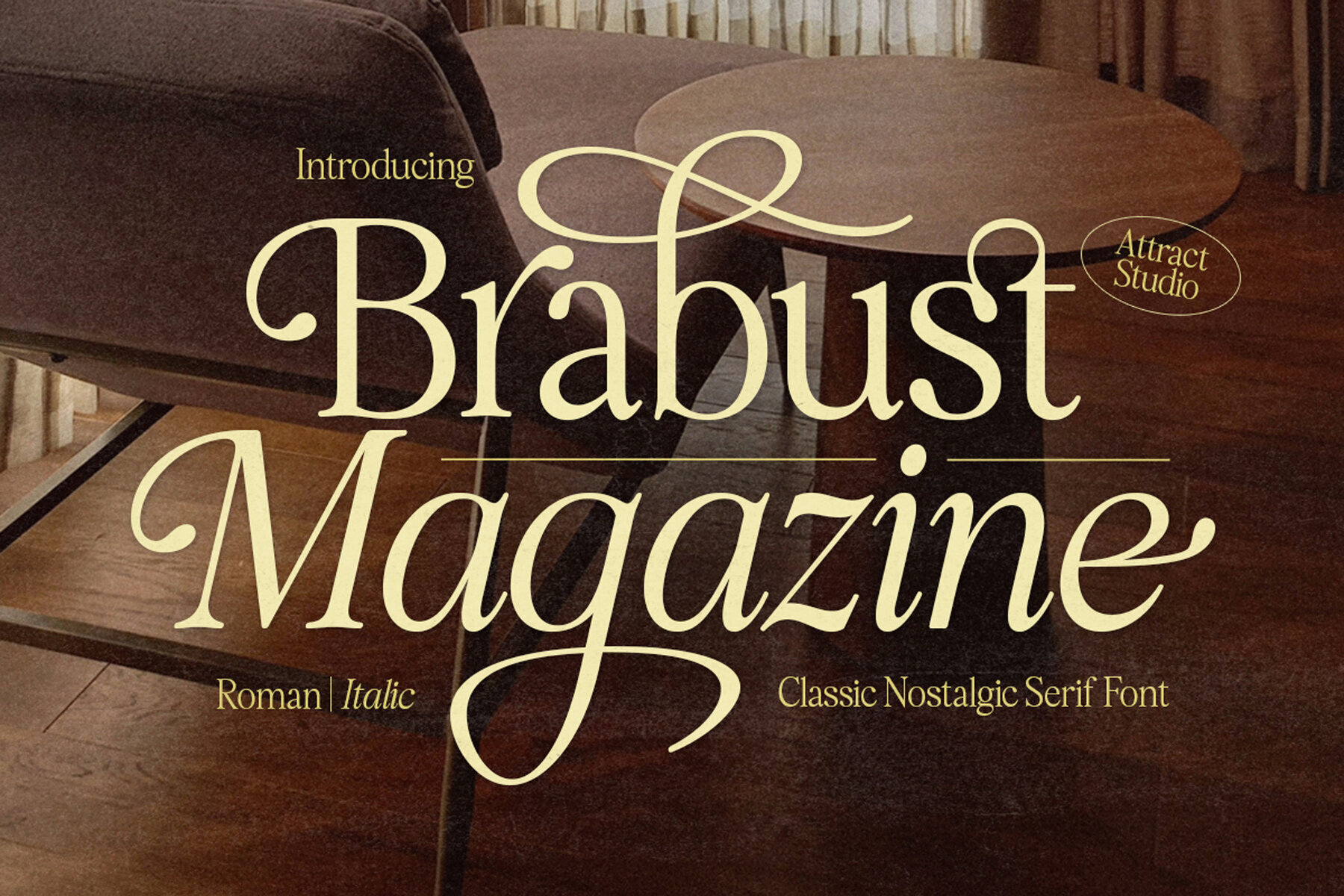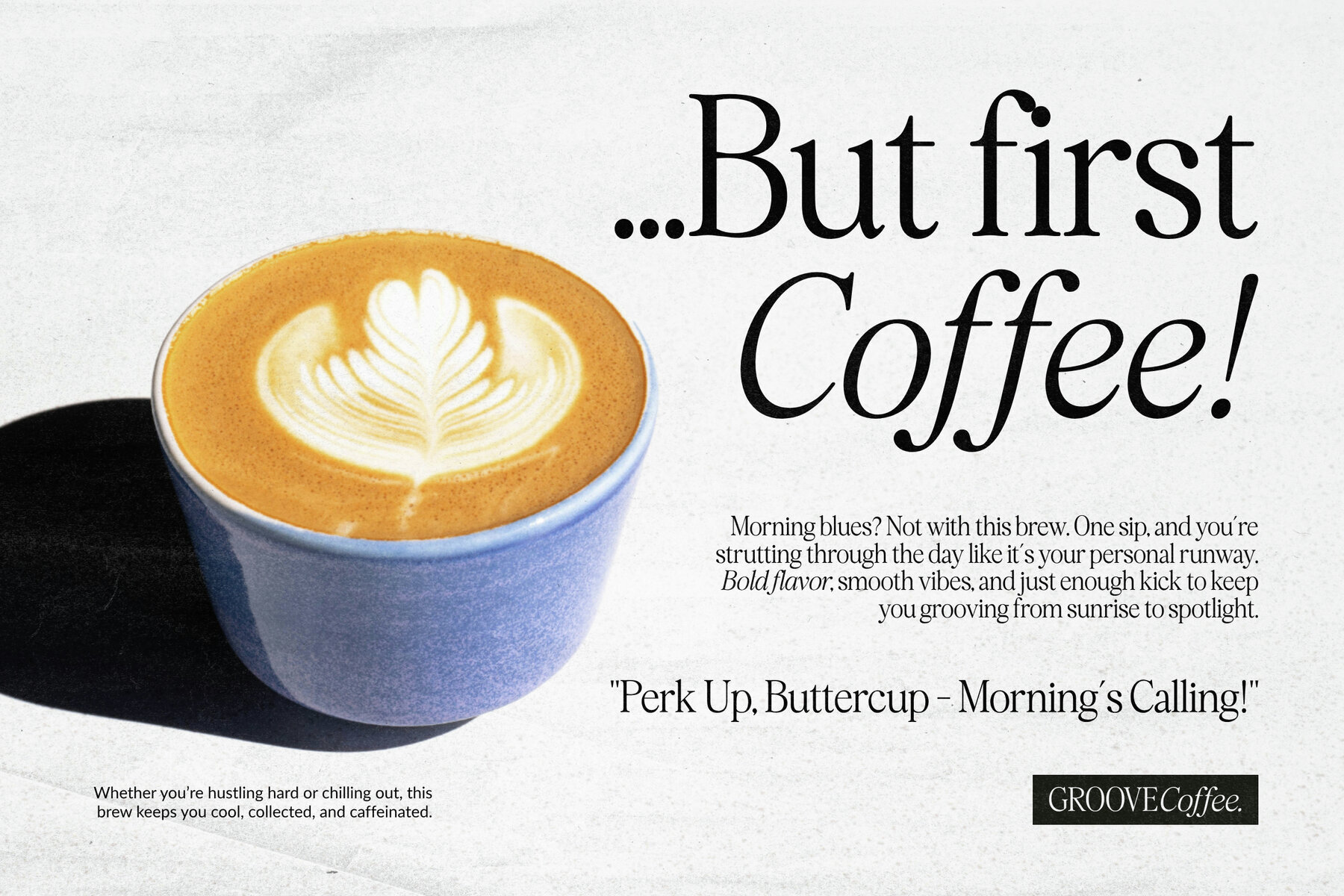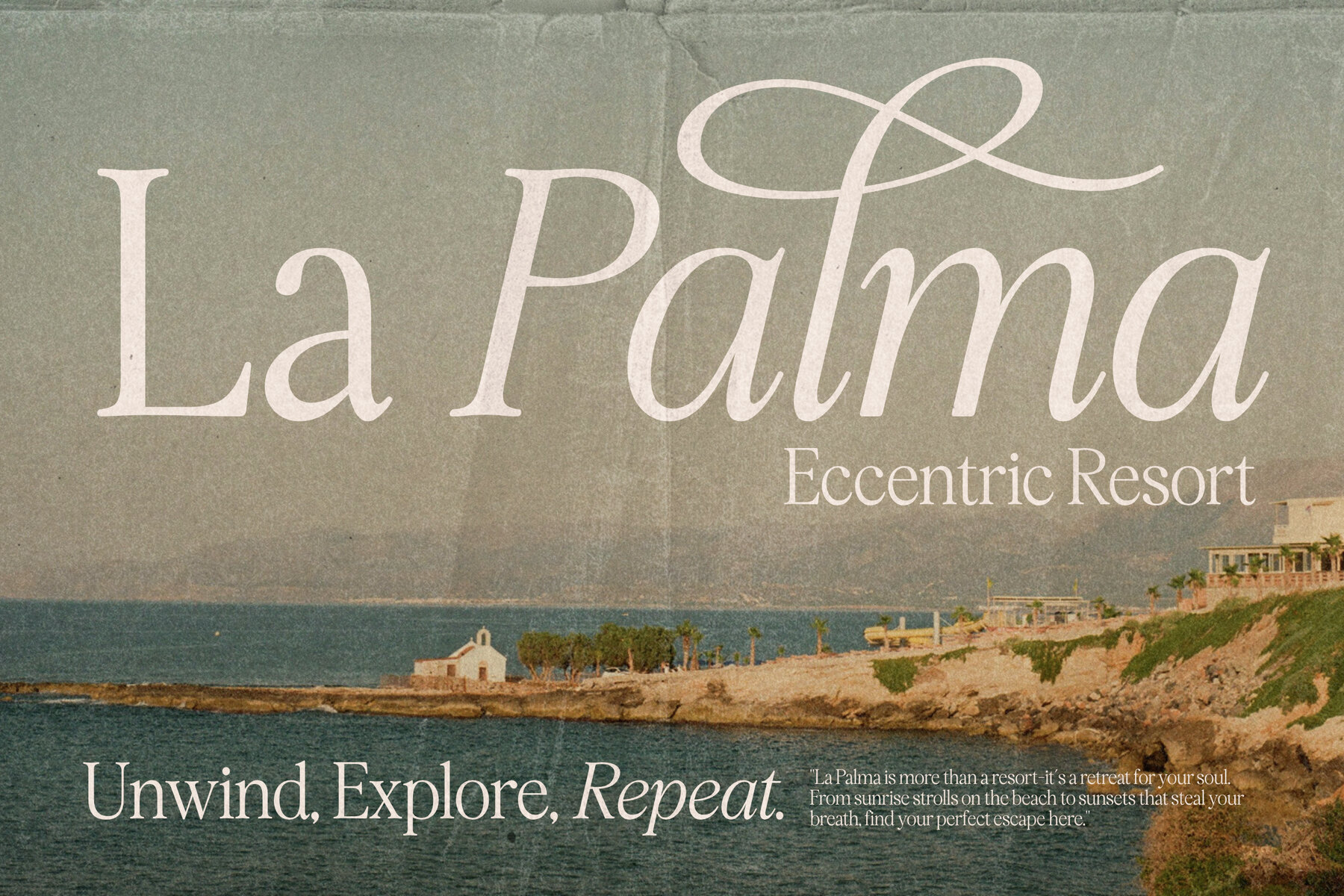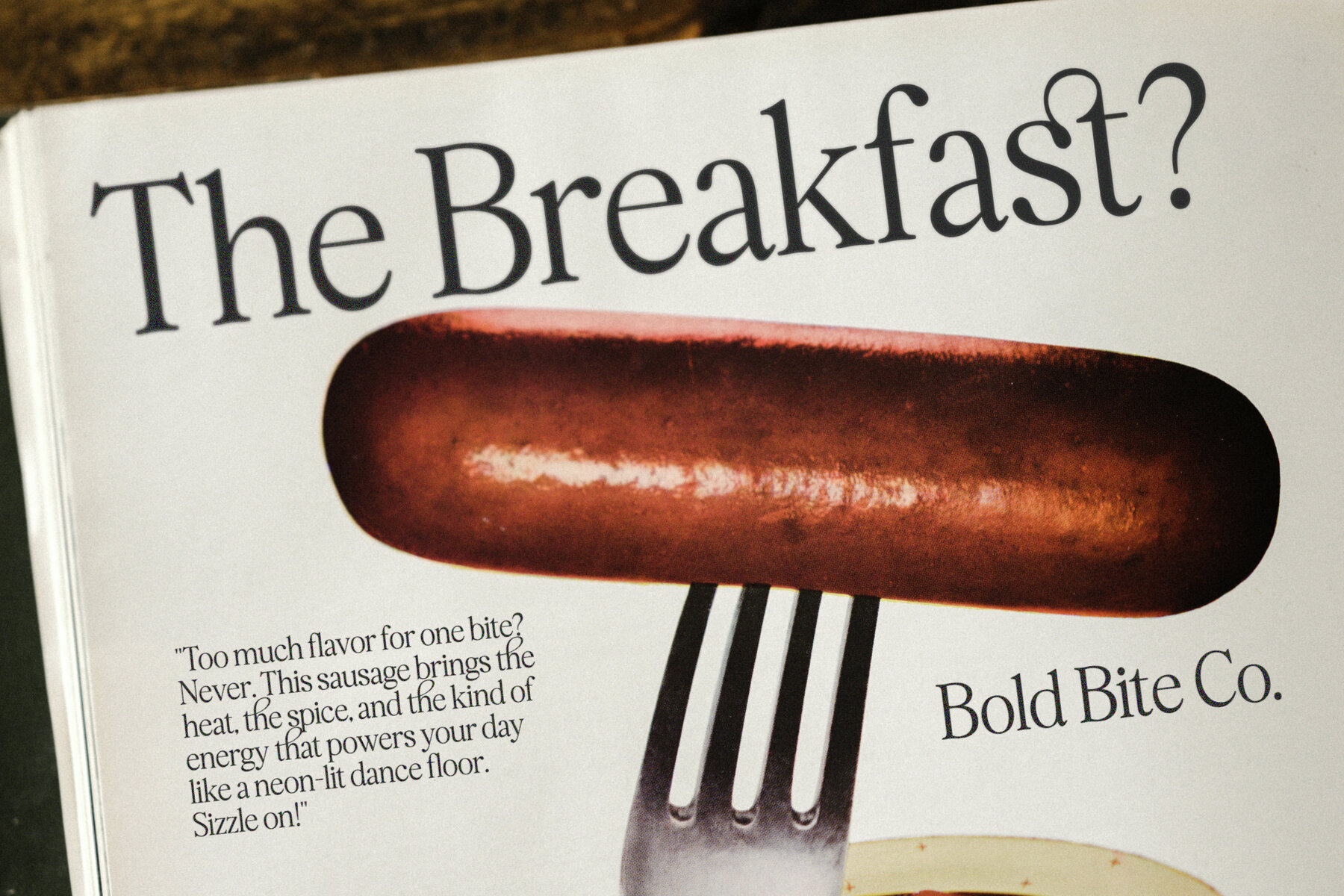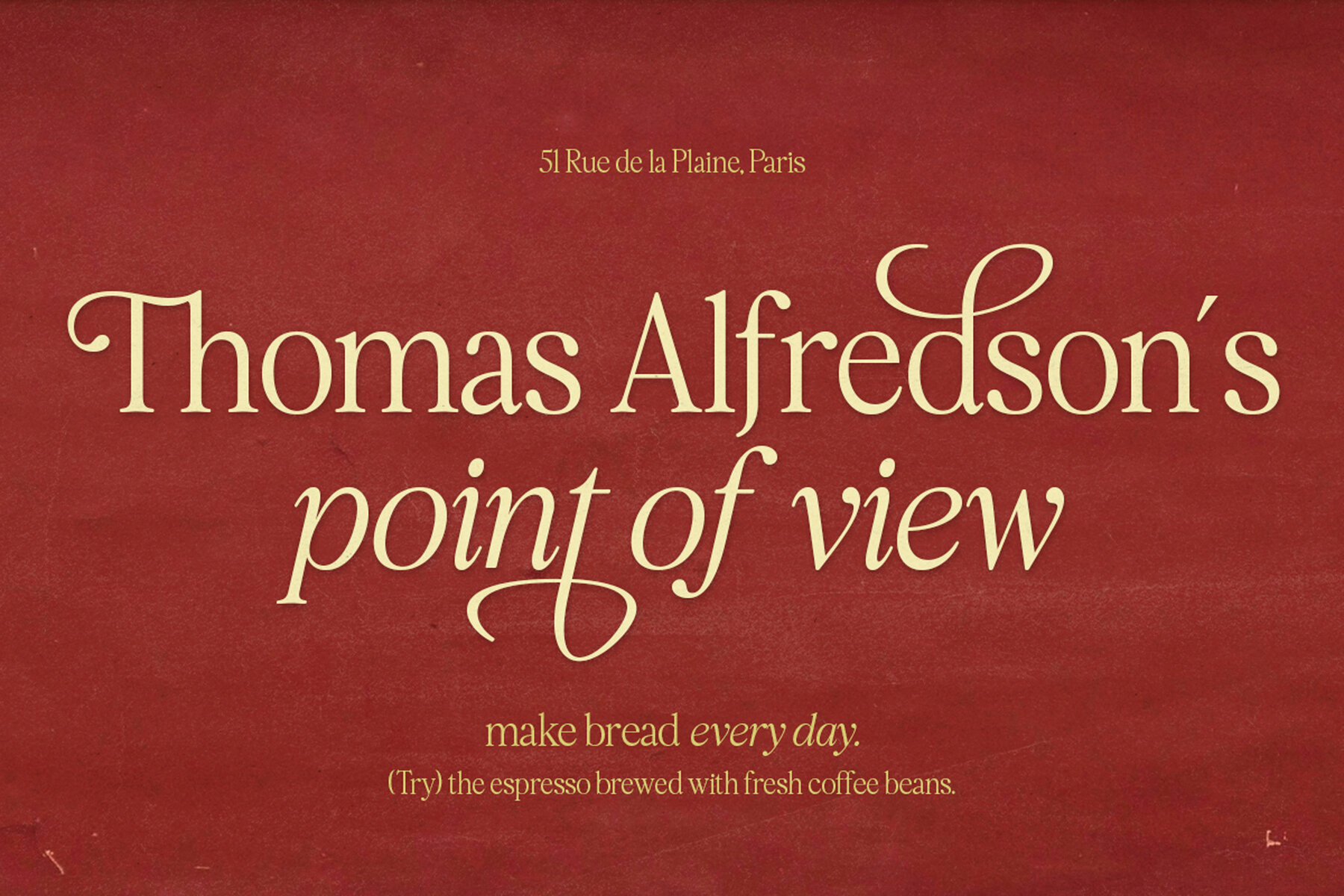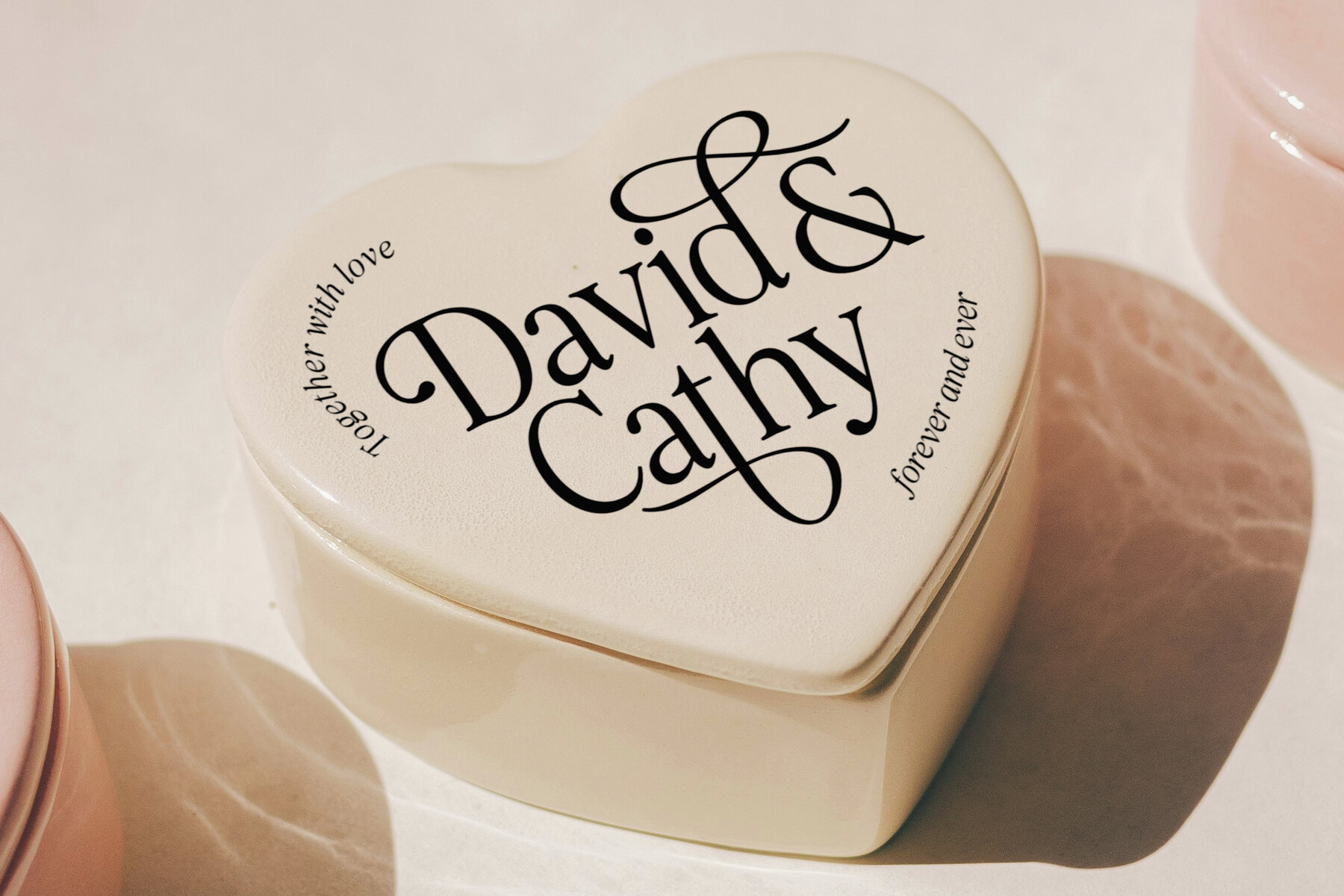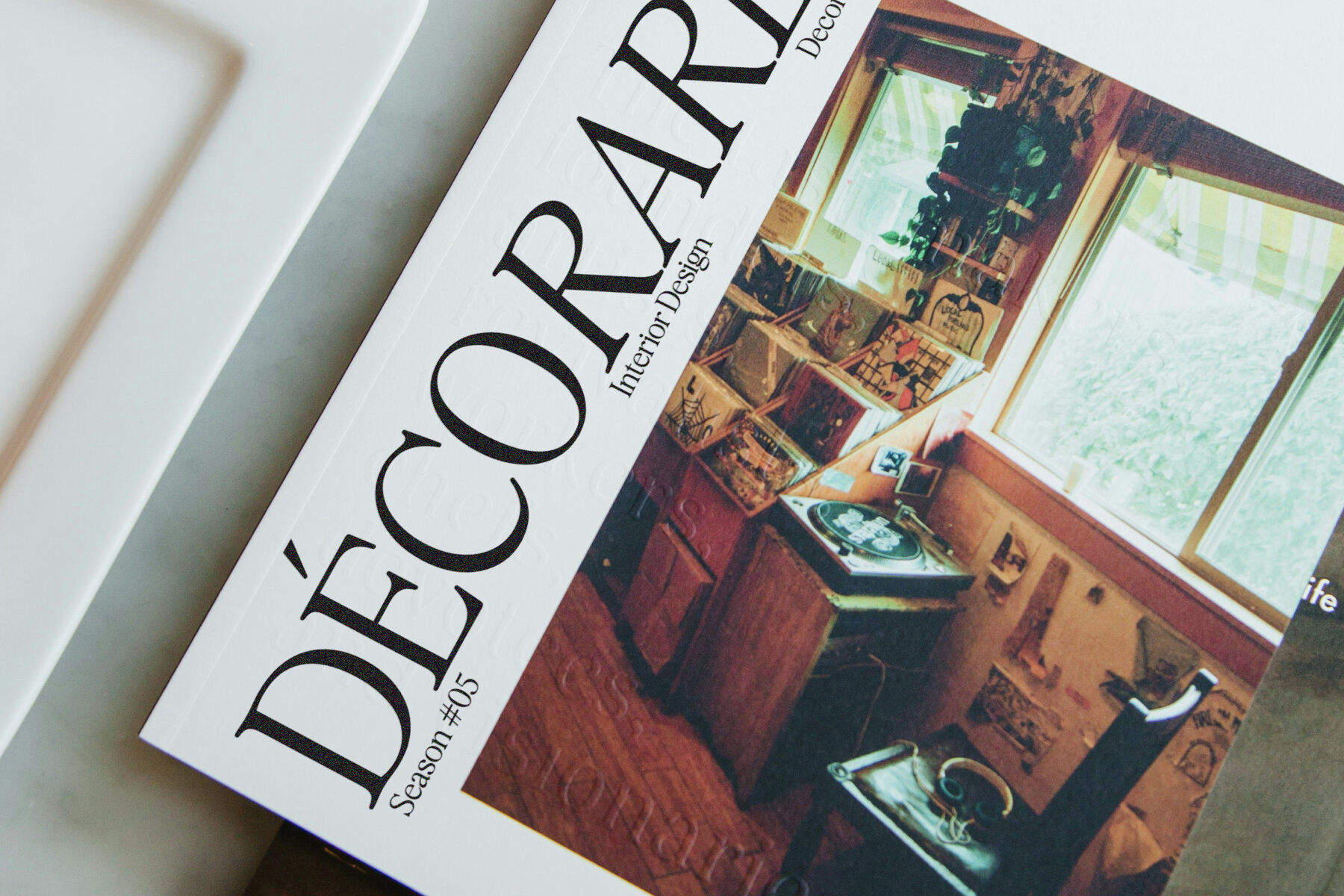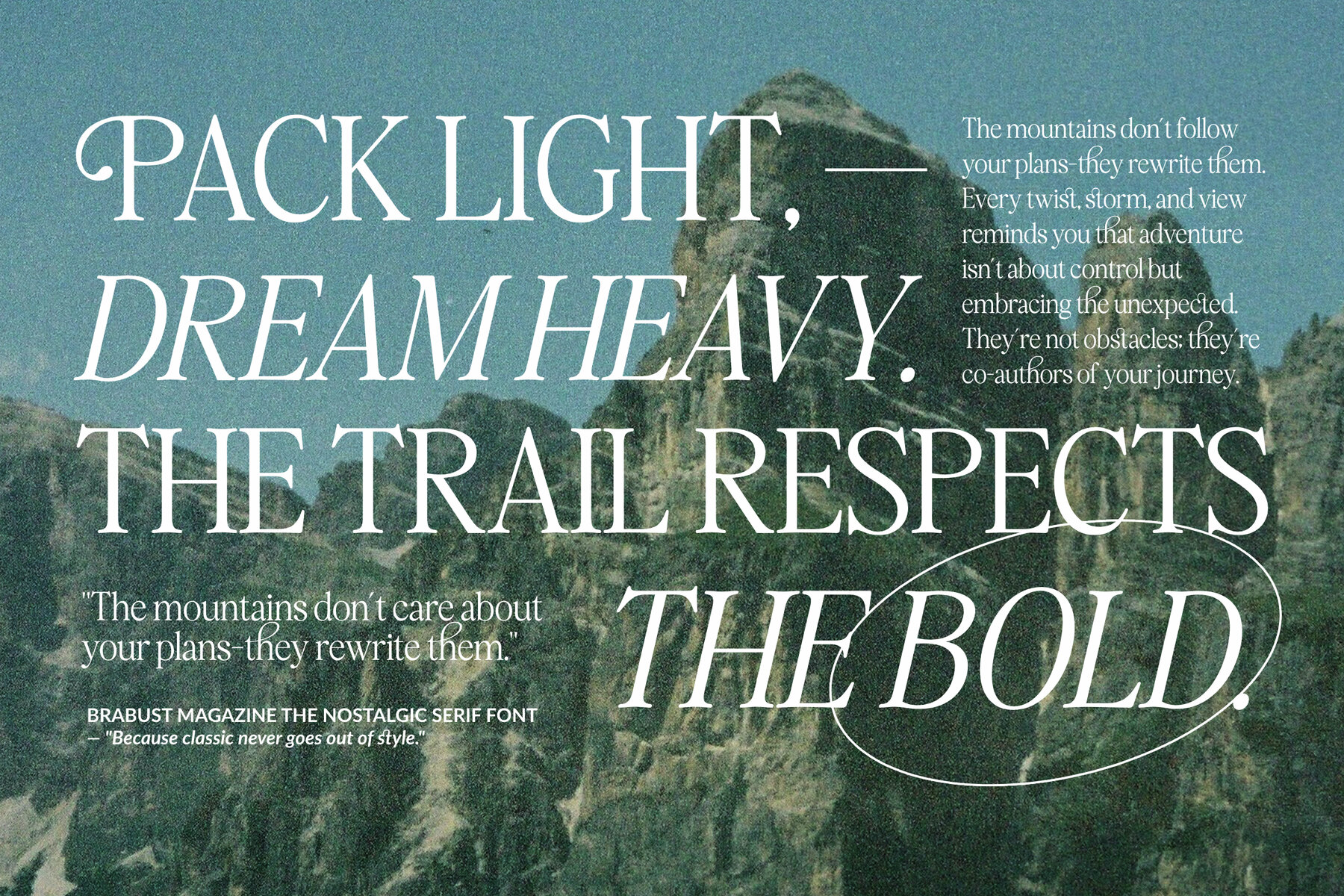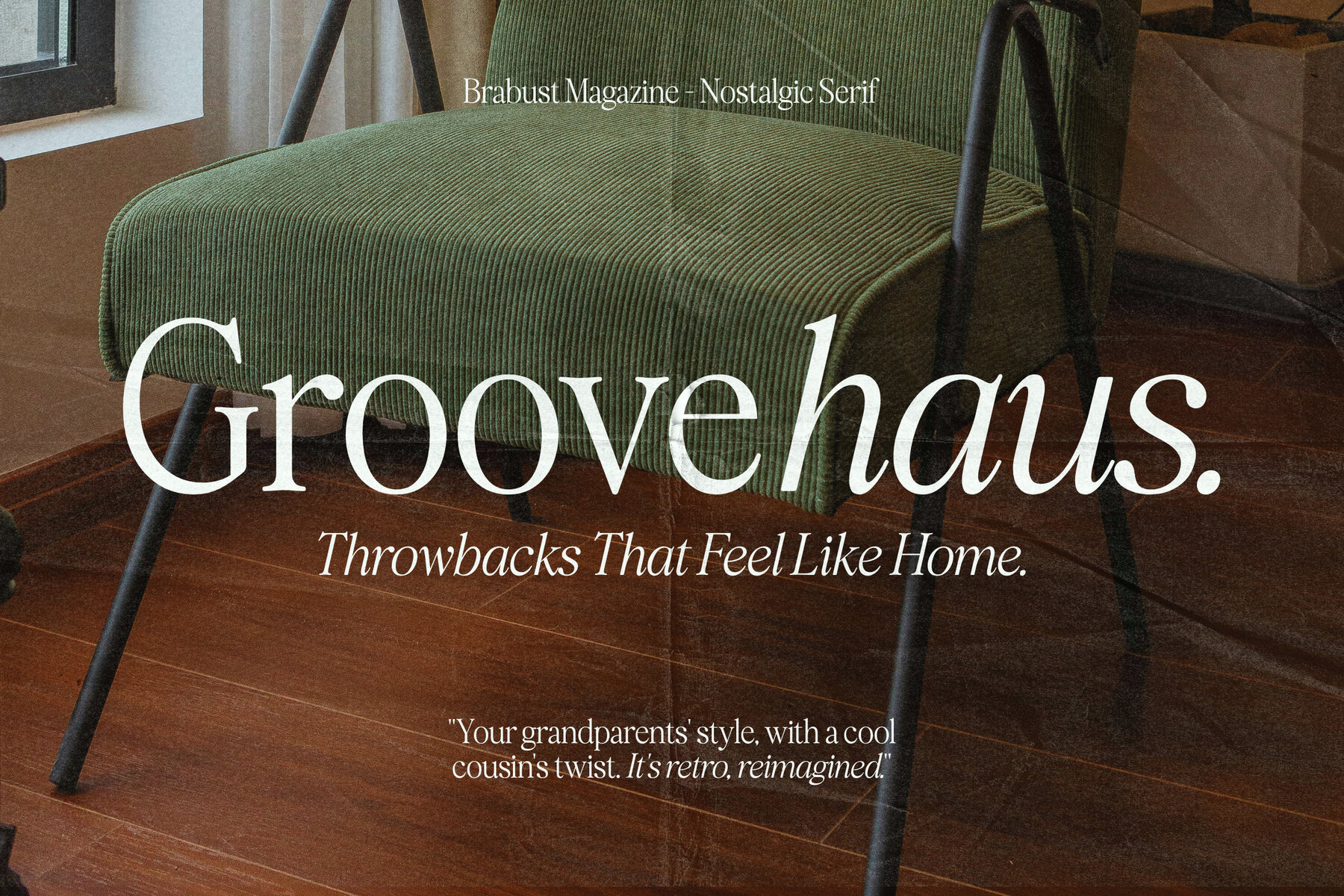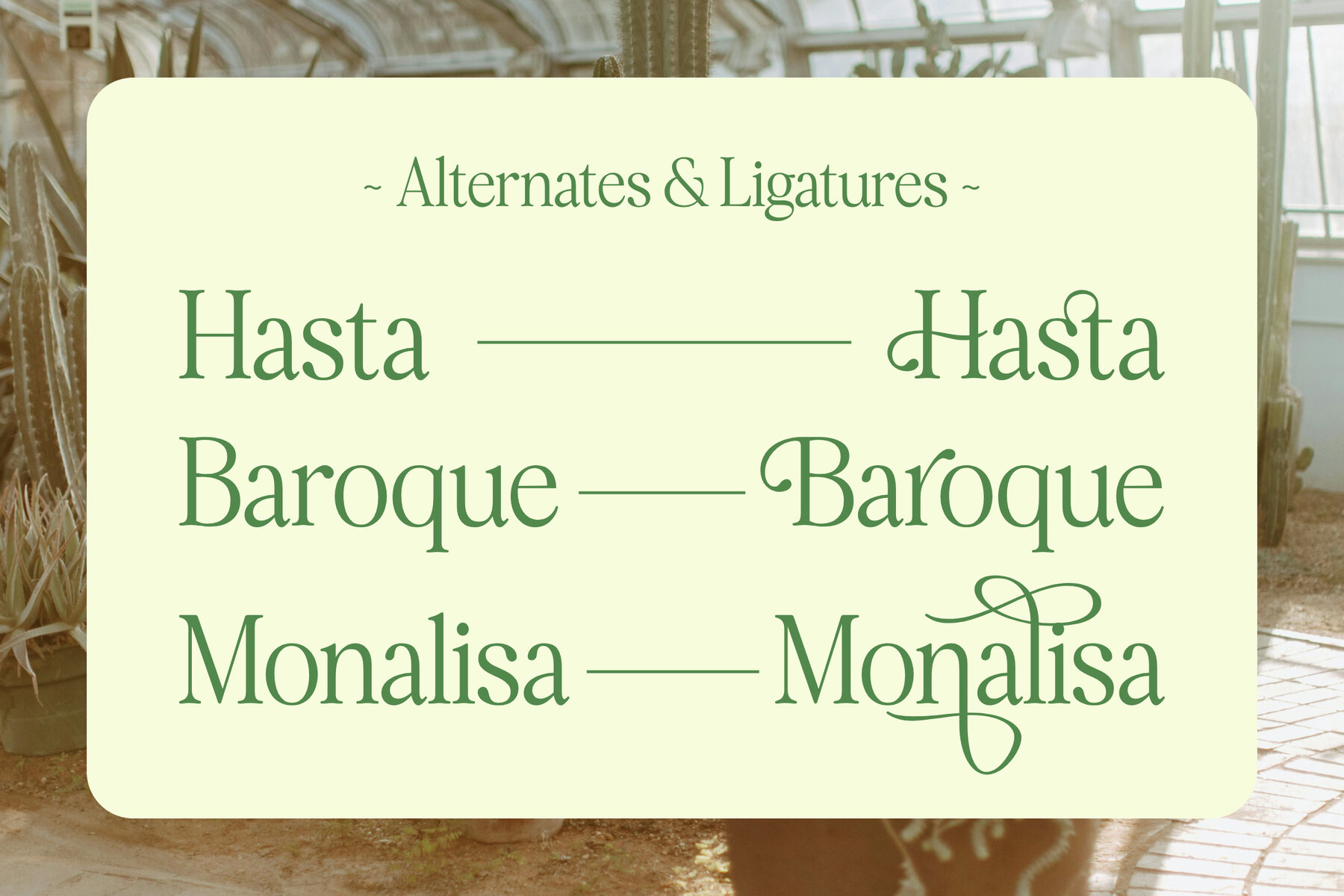
Brabust Magazine Font
Brabust Magazine is a classy and elegant serif font variant that will take you back to the 80s. Specially crafted with a classic modern touch, it is designed with tight kerning and spacing to achieve a more aesthetic look. A stunning combination of regular and italic styles that looks great in both large and small sizes, making this font perfect for titles, introductions, or sections you want to highlight. In addition, this font style is also excellent for print designs such as newspapers, magazines, or brochures to create a formal and professional look.